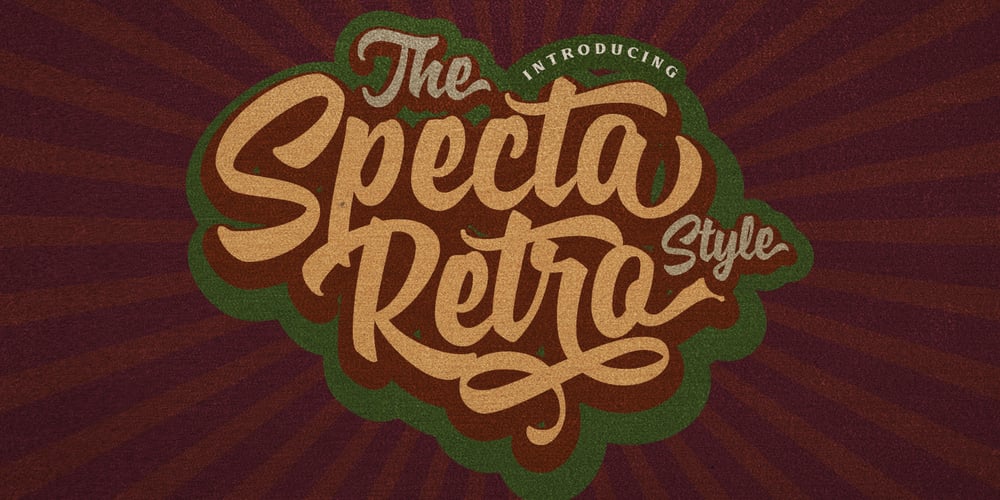
Specta Retro Script Font Family was designed by Aulia Rahman, Hendra Maulia and published by Identitype Co. Specta Retro Script contains 3 styles and family package options. Specta Typeface Inspired by Retro style and combination with Hand Lettering style. I’m made with personality touch every single curve. I hope this can make inspire you from your work. and a very bouncy baseline It has a perfectly paired complimentary marker font , and a super handy set of bonus Swash. Ideal for logos, handwritten quotes, product packaging, header, poster, merchandise, social media & greeting cards.